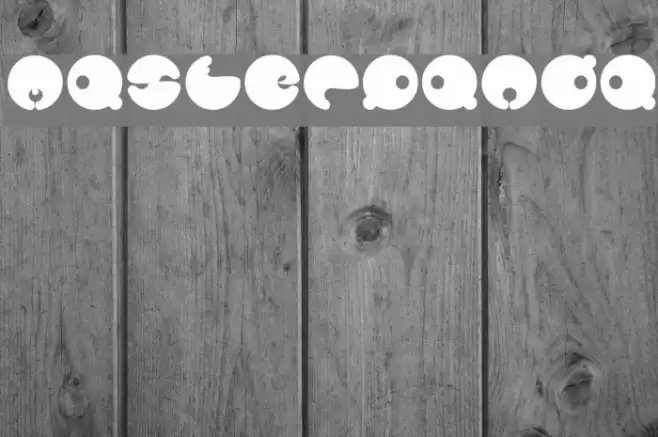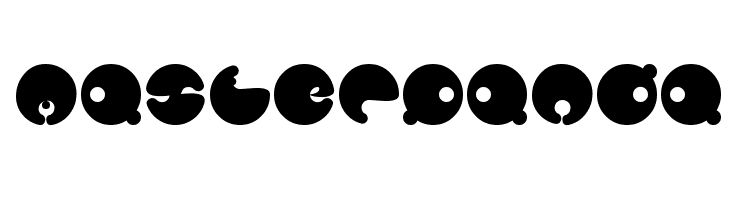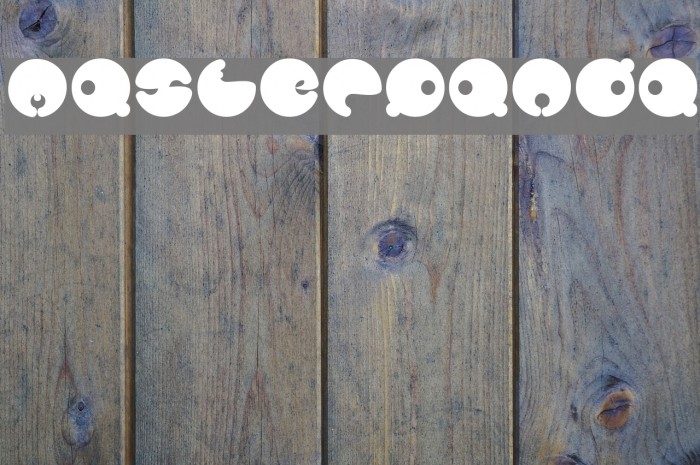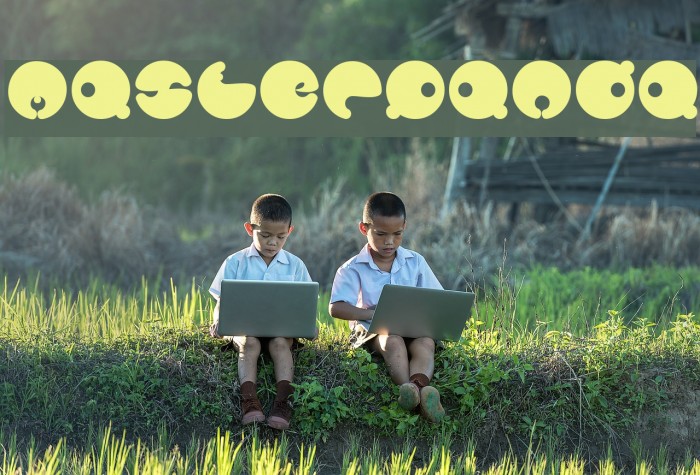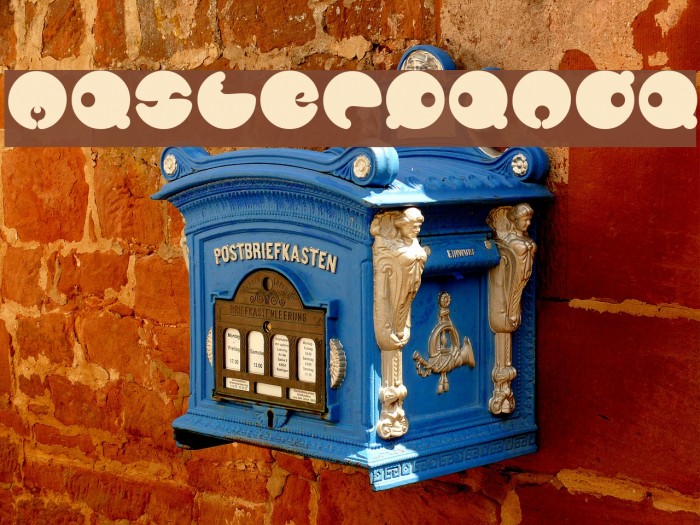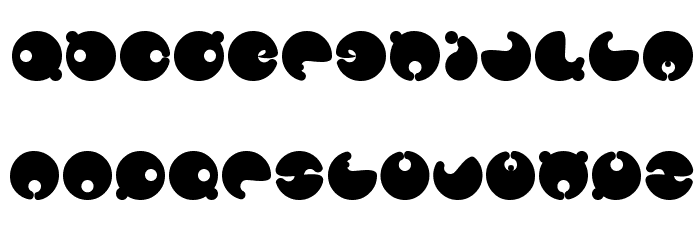
masterpanda Font
masterpanda Description
This font features a unique and playful design with bold, rounded shapes that create a whimsical and eye-catching appearance. Each character is crafted with a circular form, incorporating small cutouts that add a distinctive flair. The overall look is both modern and artistic, making it ideal for creative projects that require a touch of fun and originality. The letters are evenly spaced, ensuring readability while maintaining their decorative style. This font is perfect for use in branding, posters, and any design that aims to stand out with a bold statement.
A playful, bold, and rounded font with unique cutout designs from Fancy fonts.
- Proposed Projects: Ideal for branding, posters, children's books, and creative advertising campaigns.